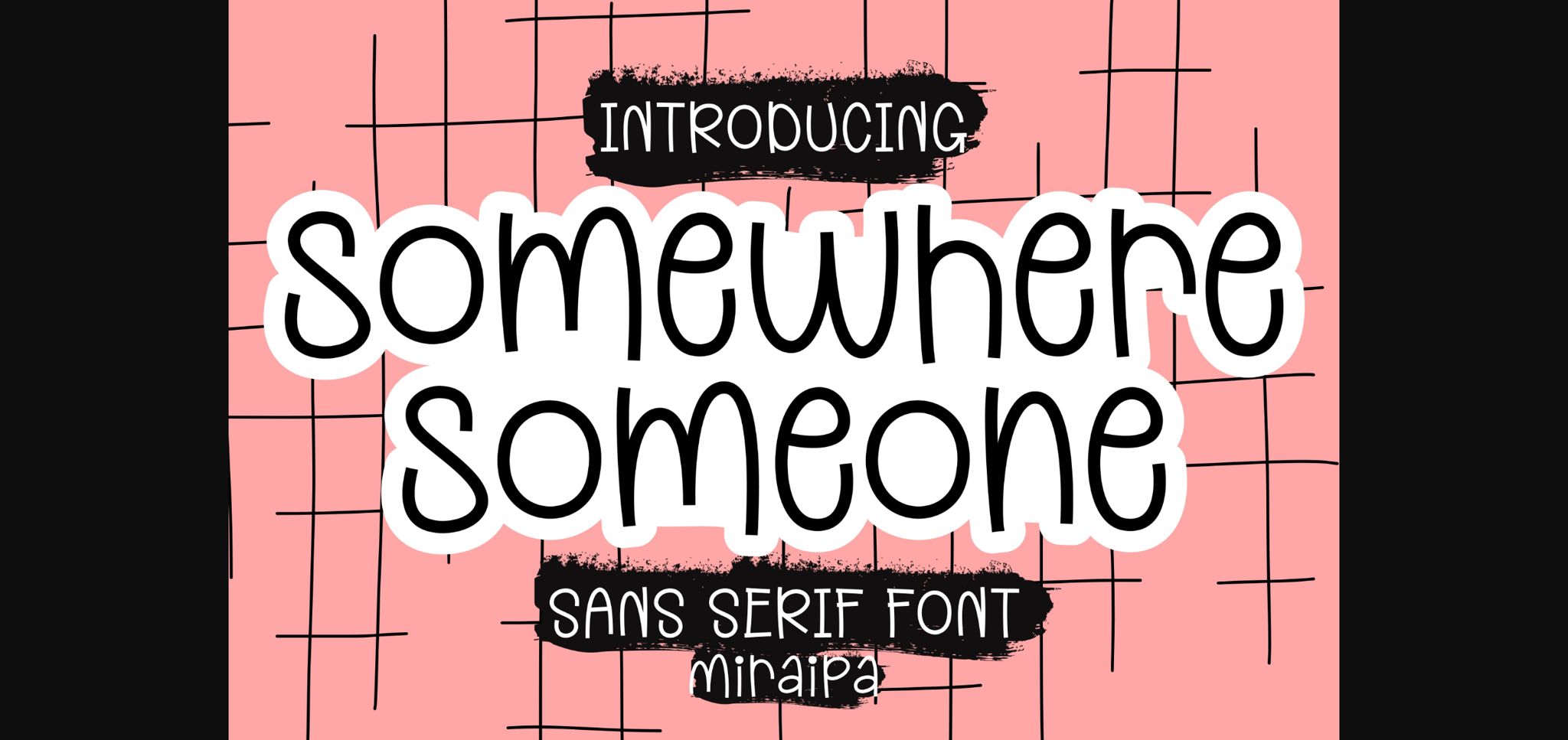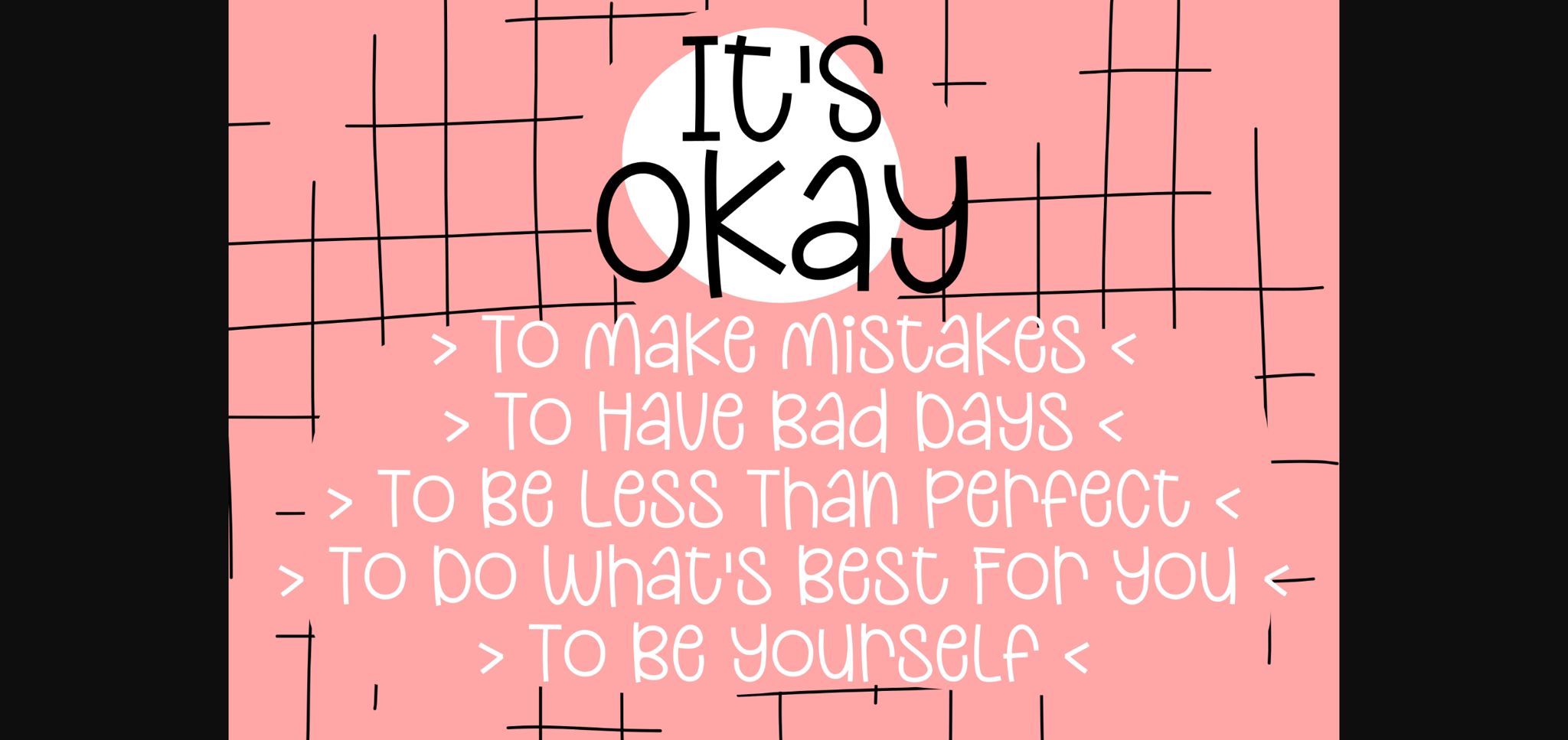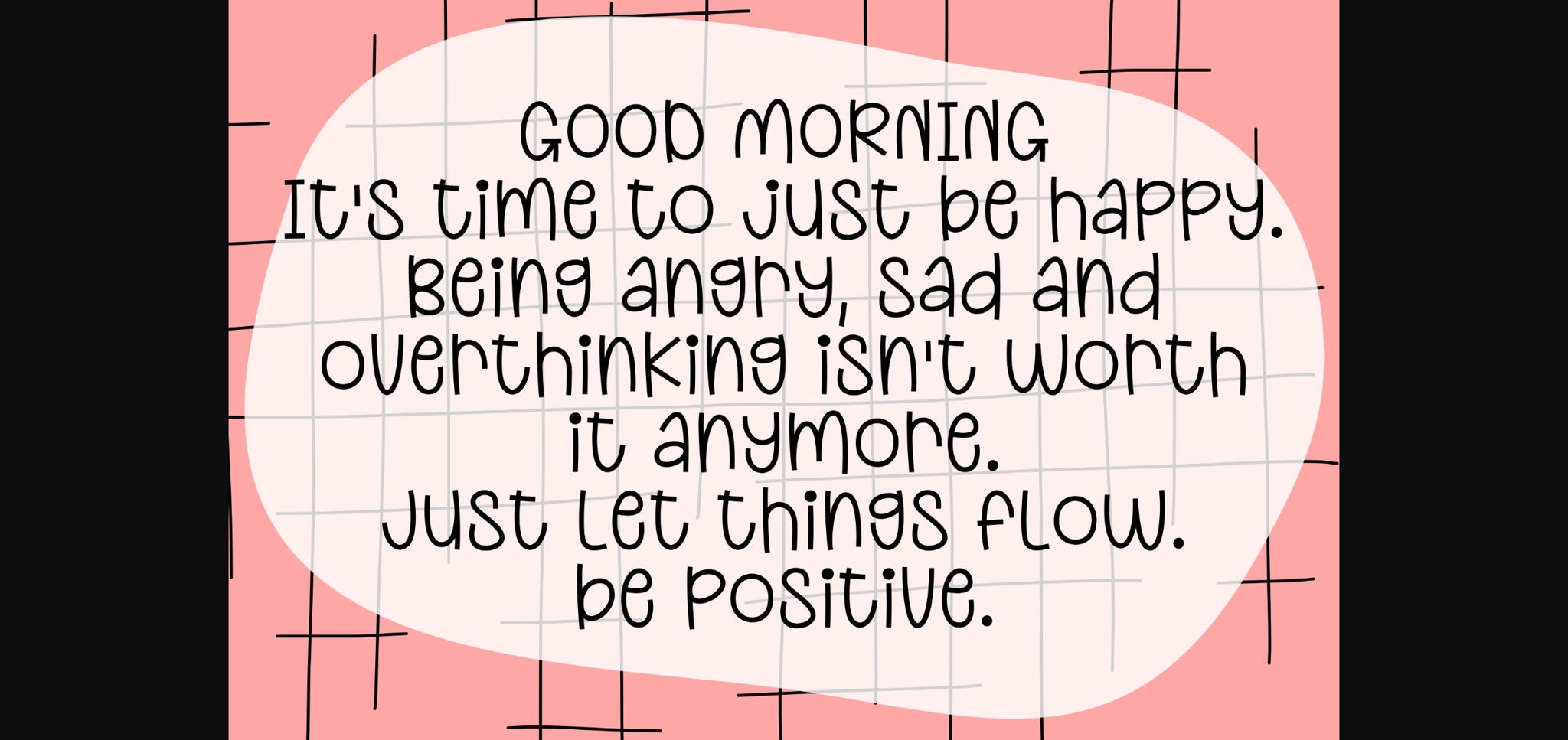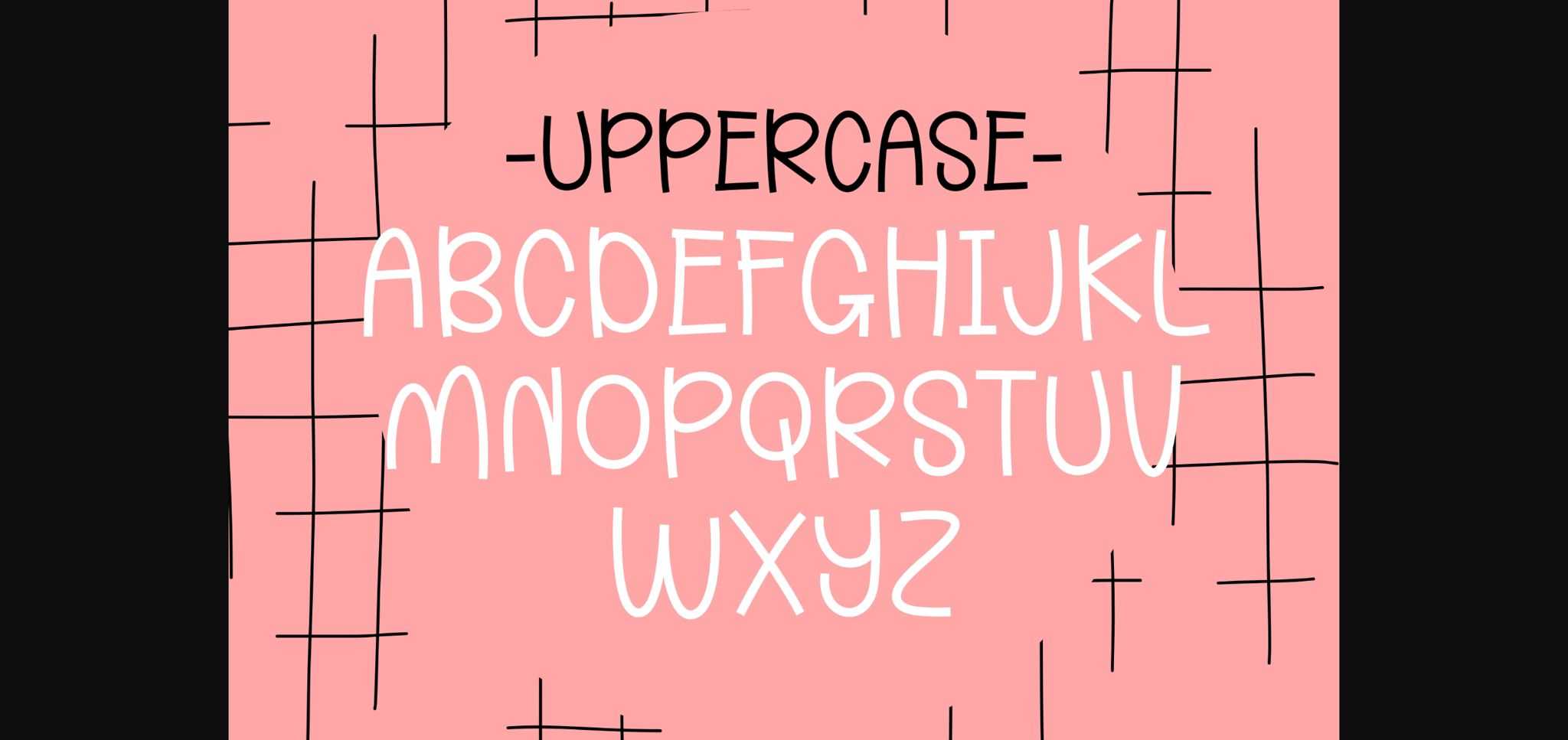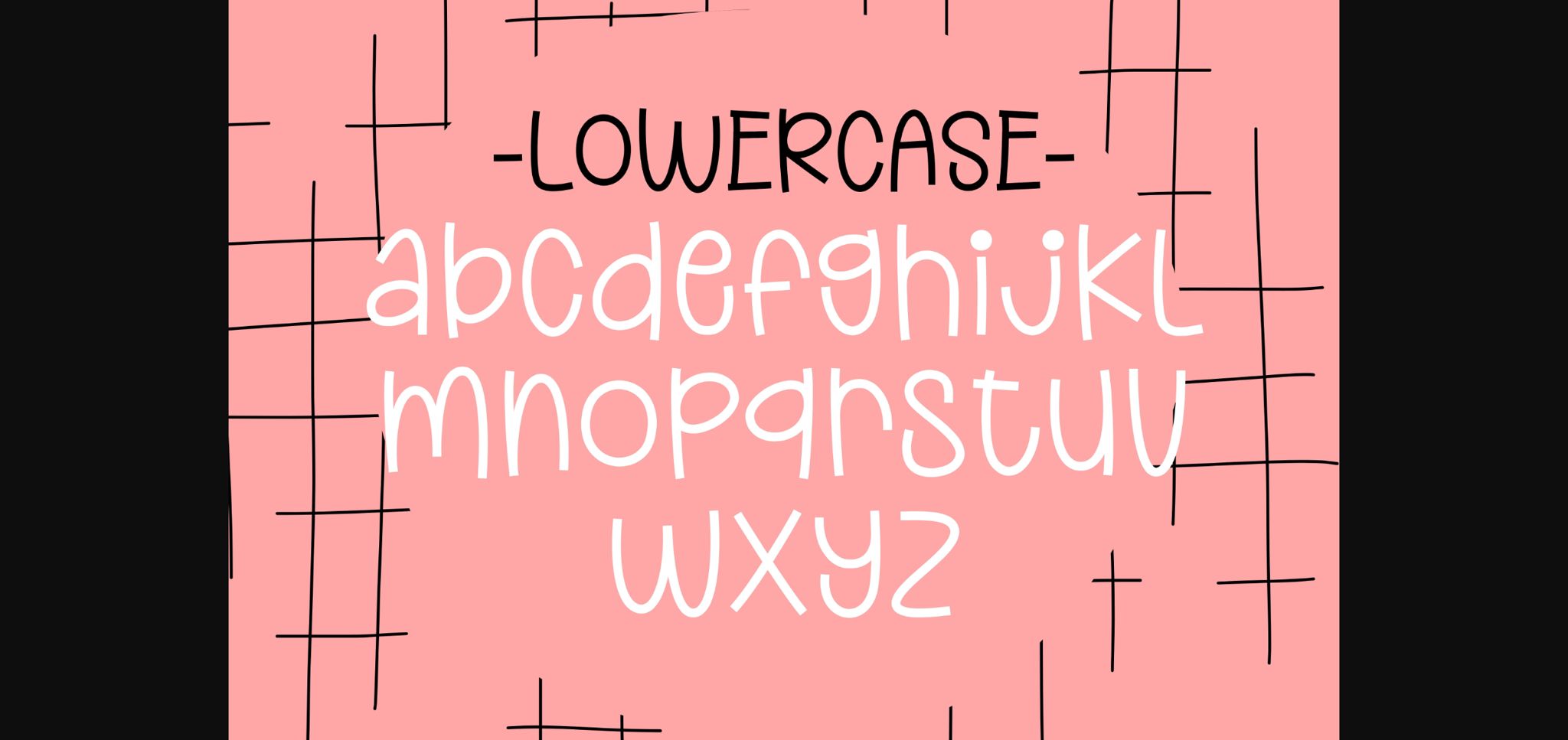
Somewhere Someone Font
About Somewhere Someone Font
Somewhere Someone is a friendly and cute sans-serif font. Add it to your creative crafty ideas and enjoy the results!